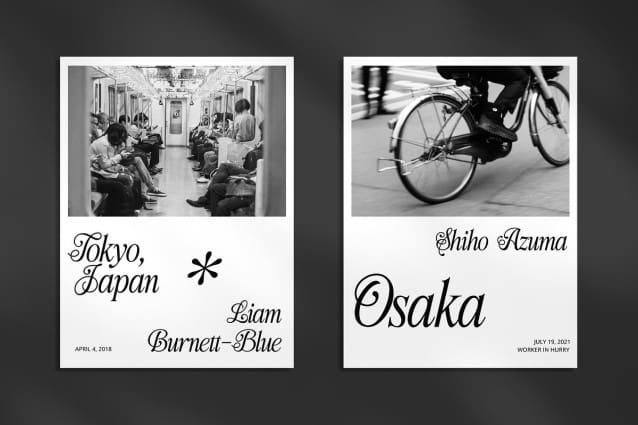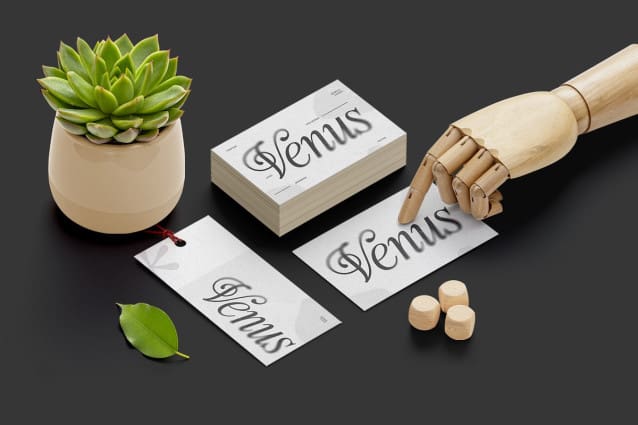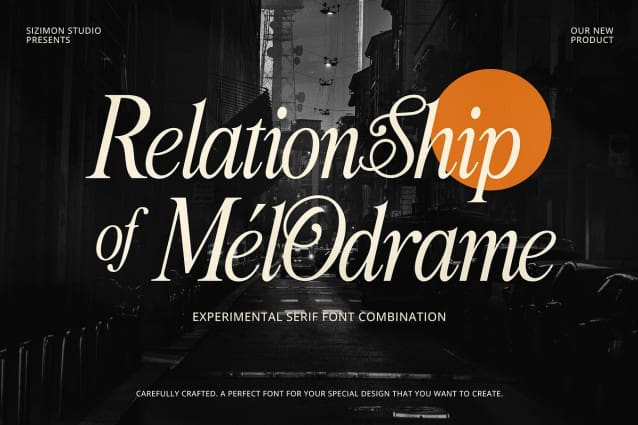
Relationship Of Melodrame Font
Relationship Of Melodrame Font is an experimental serif font. Experimental serif font is a daring typeface that combines traditional serifs with graceful calligraphic elements. This font is ideal for pushing creative boundaries in projects such as magazine layouts, album covers, and artistic posters.